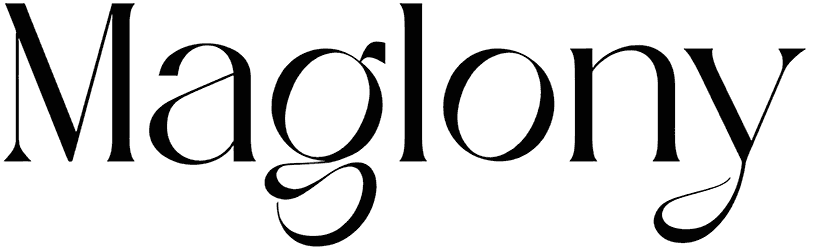
Maglony Font
Give a chic visual to your text and keep it humble with this elegant font. Maglony font is a nice pick for countless designs, like a business card for a CEO or a fashion advertisement billboard. Set this serif font for your new layout and showcase your idea in a confident and noble way.